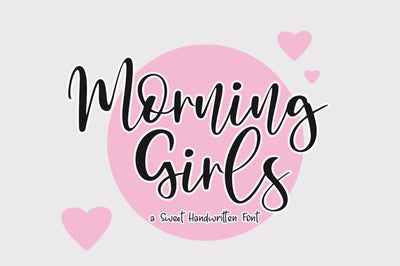
Morning Girls Handwritten Script Font
Morning Girls Bouncy Handwritten Font
Introducing the bouncy handwritten "Morning Girls" Script Font! If you are needing a touch of casual modern calligraphy for your designs, this font was created for you!